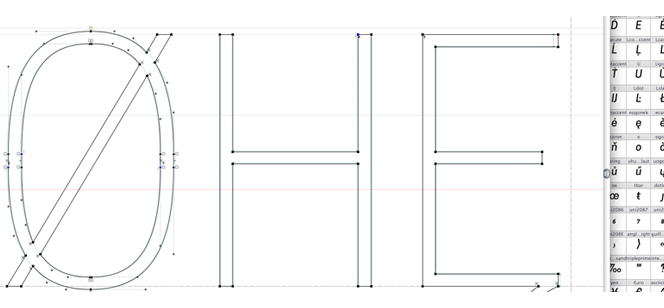
Cooper Hewitt free font
Recently the Cooper Hewitt Smithsonian Design Museum, located in New York underwent a major renovation that lasted none less than 3 years. When it reopened in December it featured more space, more exhibits, new name and totally different graphic identity. The last was much needed as for more than 100 years the museum didn’t have a unified typeface for exhibition labels, press materials or its web site. This had to be changed and a new bold identity was designed by Eddie Opara of Pentagram and his team. Later, Opara’s characters of the wordmark were redesigned, redrawn and developed into a new full grown digitalized typeface, Cooper Hewitt, by Chester Jenkins of Village. The designers felt that this typeface should be free for public usage as the museum itself belongs to all people. A very nice gesture in our opinion!
The Cooper Hewitt free font family itself is a modern sans serif characteristic with its pure geometric forms. It utilizes the space very well which is not surprising taking into account the purpose to which it was created. It is loosely based on a Jenkins’ earlier design Galaxie Polaris Condensed. Overall the appearance of Cooper Hewitt is quite modern which makes it perfect for a very wide range of applications.